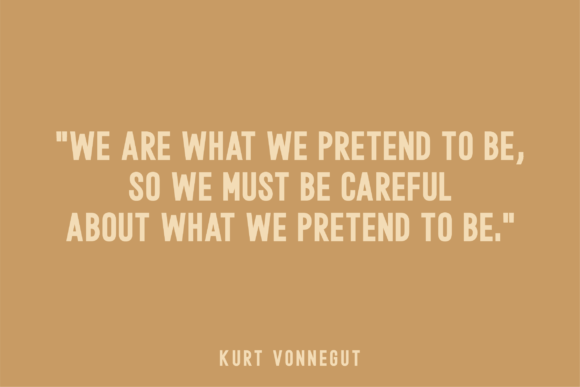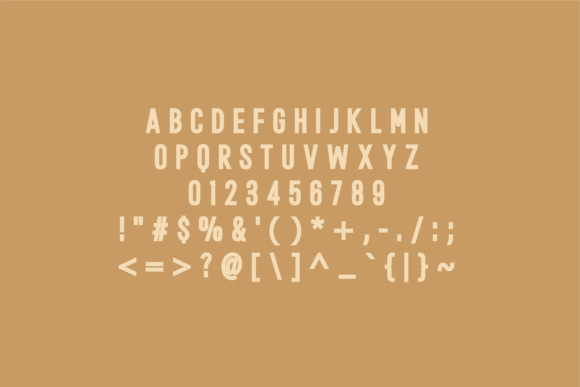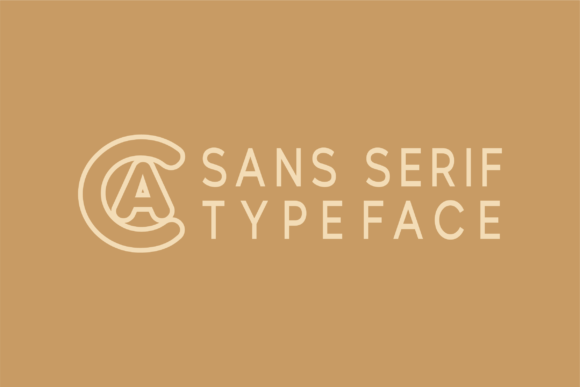
Introducing Altruism Font: Elevate Your Designs with a Touch of Modern Elegance
In the world of typography, a font can make all the difference in bringing a design to life. For designers, crafters, and creative enthusiasts, finding the perfect font that embodies both style and versatility can be a daunting task. This is where Altruism Font comes into play – a modern, classy sans serif font that is poised to revolutionize the way you approach your designs.
Unleash Your Creativity with Altruism Font
Altruism Font is not just any ordinary font; it’s a design powerhouse that can elevate your projects to new heights. Whether you’re working on a logo, wedding invitation, quote, advertisement, or any print material for magazines, Altruism Font is the perfect companion. Its clean lines, modern aesthetic, and versatile nature make it an ideal choice for a wide range of applications.
Key Features of Altruism Font
- Versatility: One of the standout features of Altruism Font is its incredible versatility. It can seamlessly adapt to various design contexts, from formal and elegant to casual and playful.
- Modern Aesthetic: With its sleek and contemporary design, Altruism Font brings a fresh and modern feel to any project. Its sans serif design ensures that your text remains clean and easily readable, making it perfect for both digital and print media.
- Elegance: Altruism Font exudes elegance, making it an excellent choice for high-end projects such as luxury brand logos, wedding invitations, and upscale advertisements.
The true power of Altruism Font lies in its ability to bring your most creative ideas to life. Here are some ways you can utilize this fantastic font:
- Logos: Create memorable and impactful logos that stand out. The modern and classy feel of Altruism Font ensures that your brand makes a lasting impression.
- Weddings and Invitations: Add a touch of sophistication and elegance to your wedding invitations, save-the-date cards, and other event-related materials.
- Quotes and Typography: Use Altruism Font to highlight inspirational quotes, phrases, or statements. Its readability and aesthetic appeal make it perfect for showcasing text.
- Advertisements: Elevate your advertising materials with a font that captures attention and communicates your message with clarity and style.
- Print and Magazines: Whether you’re working on a magazine, brochure, or any other print material, Altruism Font can add a professional and polished look to your content.
Why Choose Altruism Font?
In a sea of fonts, Altruism Font stands out for several reasons:
- Unique yet Readable: It offers a unique design that doesn’t compromise on readability, ensuring your message is both stylish and clear.
Altruism Font is more than just a typeface; it’s a design companion that can help you achieve your creative goals. Its blend of modernity, elegance, and versatility makes it an indispensable tool for designers and crafters alike. By incorporating Altruism Font into your projects, you’re not just choosing a font; you’re elevating your designs to new heights of sophistication and style. So, add Altruism Font to your toolkit today and watch your most creative ideas come alive!